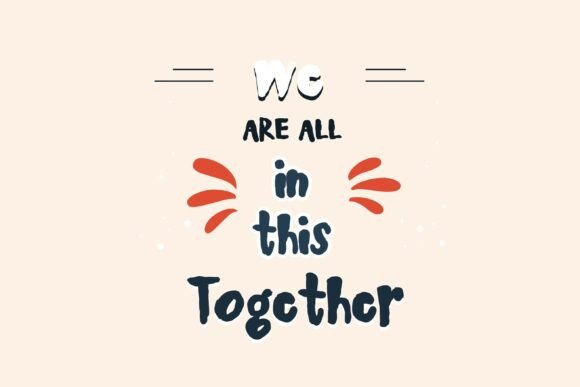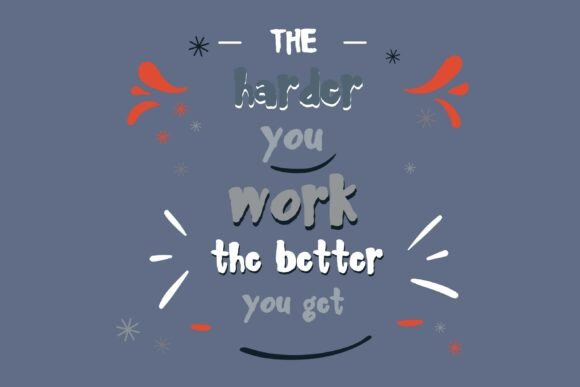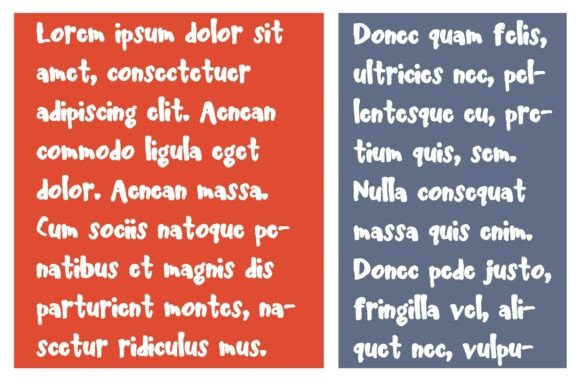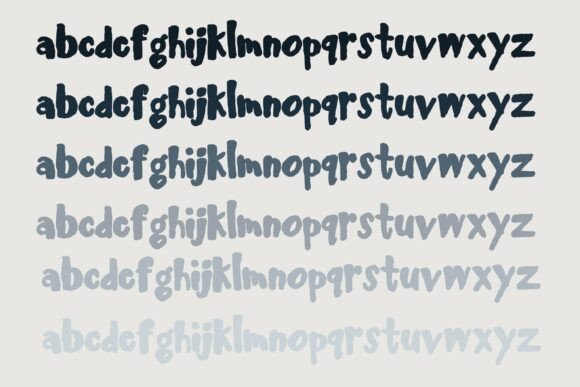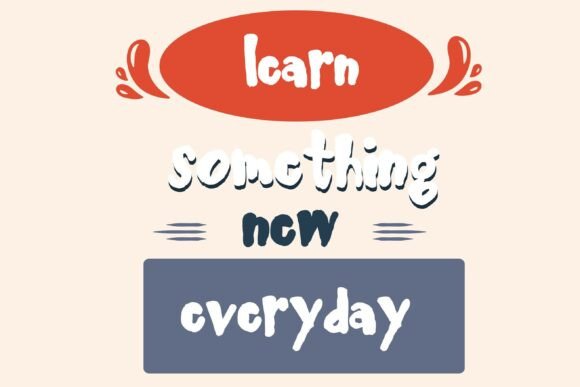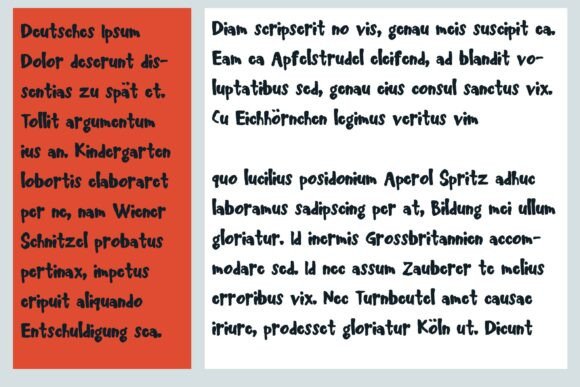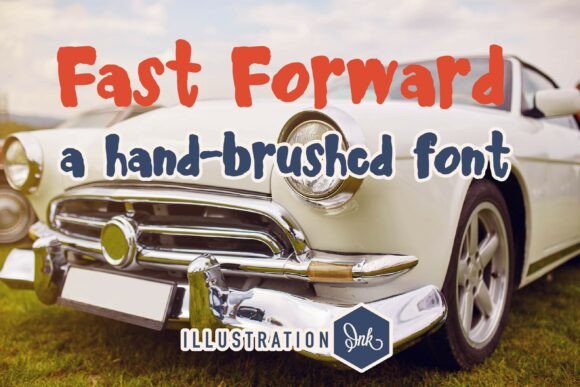
Accelerate Your Creativity with Fast Forward Font
In the world of typography, fonts play a crucial role in conveying the tone and personality of a brand. For designers and crafters looking to add a touch of dynamism and retro charm to their projects, the Fast Forward font is an excellent choice. This high-octane display typeface is meticulously crafted to capture the essence of speed, energy, and vintage automotive style.
The Dynamic Soul of Fast Forward Font
Fast Forward font embodies a unique blend of dynamic and retro elements, making it perfect for projects that require a bold and eye-catching aesthetic. The font features bold, chunky letterforms that are designed to evoke a sense of constant motion. The authentic hand-brushed textures add a raw, organic feel to the font, while the rhythmic, casual slant of the letters suggests speed and agility.
Perfect for High-Impact Designs
Fast Forward font is an excellent choice for a wide range of design projects, including independent classic car restoration branding, garage-style apparel logos, high-speed event posters, and high-impact social media headers. The font’s vintage automotive charm and dynamic energy make it perfect for designers and crafters who want to create bold and attention-grabbing designs.
Key Features of Fast Forward Font
- Bold and Chunky Letterforms: Fast Forward font features bold and chunky letterforms that are designed to make a statement.
- Authentic Hand-Brushed Textures: The font’s authentic hand-brushed textures add a raw, organic feel to the letters.
- Rhythmic and Casual Slant: The rhythmic and casual slant of the letters suggests constant motion and energy.
- Vintage Automotive Charm: The font’s vintage automotive charm makes it perfect for designs that require a retro touch.
Design Inspiration with Fast Forward Font
Fast Forward font is perfect for designers and crafters who want to create designs that evoke a sense of speed, energy, and adventure. Here are some design inspiration ideas to get you started:
- Classic Car Restoration Branding: Use Fast Forward font to create bold and eye-catching logos for classic car restoration projects.
- Garage-Style Apparel Logos: The font’s vintage automotive charm makes it perfect for garage-style apparel logos.
- High-Speed Event Posters: Fast Forward font is an excellent choice for high-speed event posters, such as racing events or motorsports competitions.
- Social Media Headers: Use the font to create high-impact social media headers for road-trip adventure accounts or travel blogs.
Tips for Using Fast Forward Font
Here are some tips for using Fast Forward font in your designs:
- Use it as a Display Font: Fast Forward font is designed to be used as a display font, so use it to create bold and eye-catching headlines.
- Experiment with Colors: The font’s bold and chunky letterforms look great in bold and bright colors.
- Pair it with Simple Backgrounds: Fast Forward font works best with simple backgrounds that don’t compete with the bold letterforms.
Fast Forward font is an excellent choice for designers and crafters looking to add a touch of dynamism and retro charm to their projects. With its bold and chunky letterforms, authentic hand-brushed textures, and rhythmic and casual slant, this font is perfect for creating high-impact designs that evoke a sense of speed, energy, and adventure.